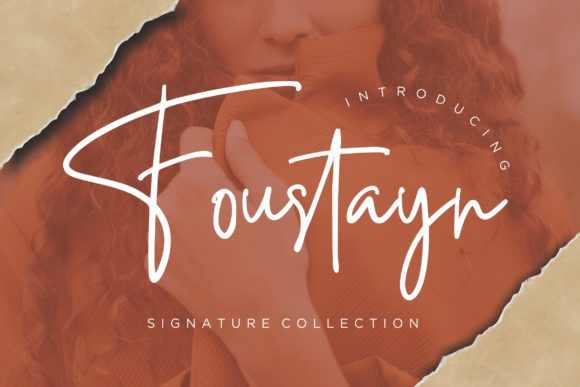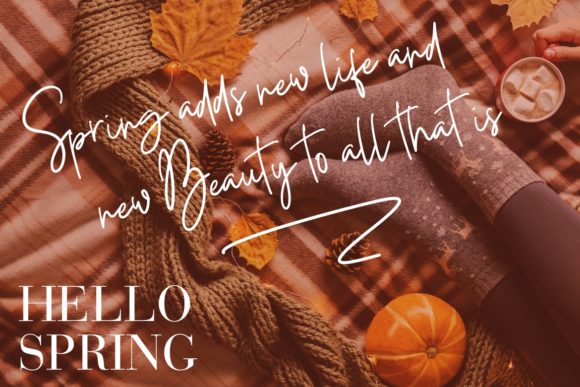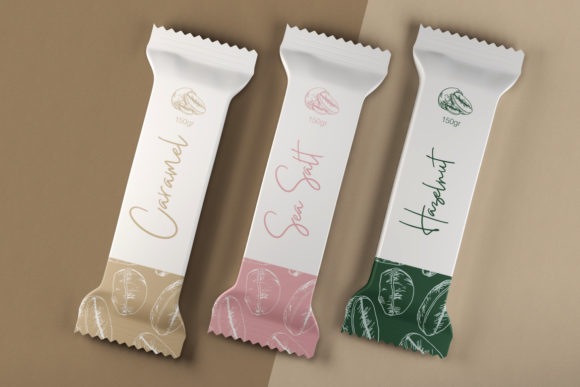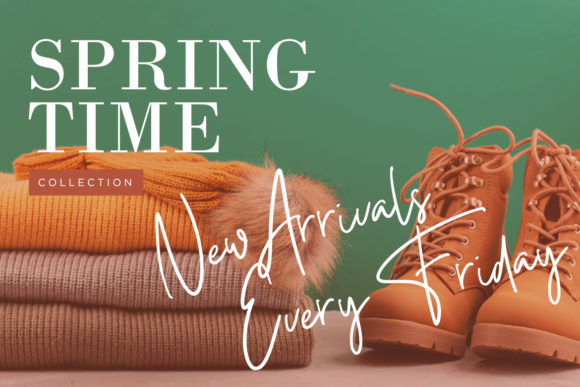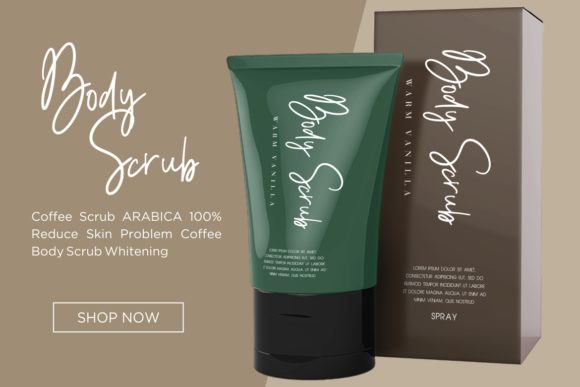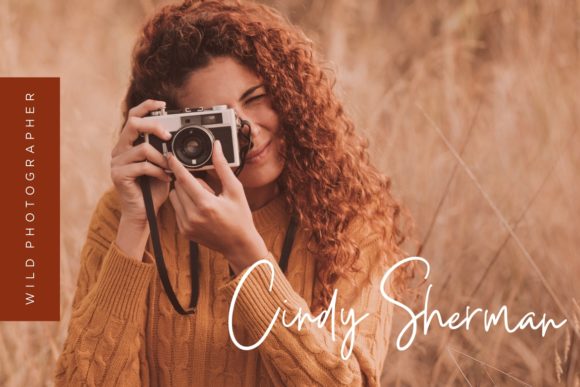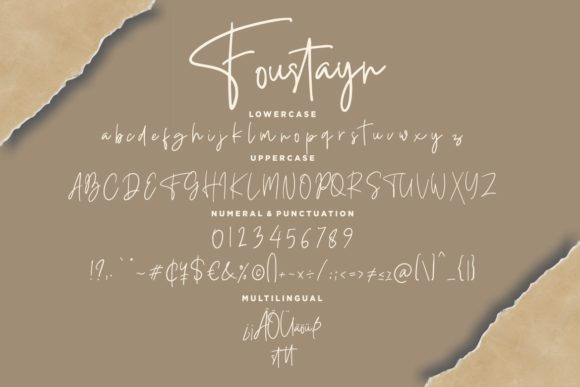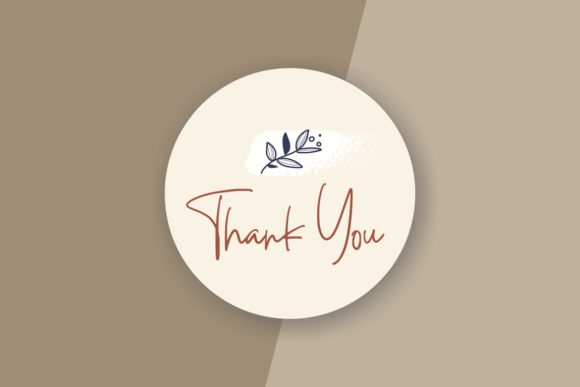
HomeScript FontsFoustayn Font Script Fonts Foustayn Font FacebookXPinterestWhatsApp Foustayn Font Poster 2 Foustayn Font Poster 3 Foustayn Font Poster 4 Foustayn Font Poster 5 Foustayn Font Poster 6 Foustayn Font Poster 7 Foustayn Font Poster 8 About Foustayn Font Foustayn is a simple, yet elegant script font with a casual style. DOWNLOAD ON CREATIVE FABRICAThis font is sold and delivered by Creative Fabrica. Font Canyon may earn a commission if you buy through this link. People also explored Twilight Font Metro Mini Font Hanalei Pro History Font Hafetareha Font Rabbits Font Amelia Script – Draft Version Fayyana Font Daddy Font 288 0 TagsFoustayn Font Previous articleJacktro FontNext articleAmira Calm Font LEAVE A REPLY Cancel reply Comment: Please enter your comment! Name:* Please enter your name here Email:* You have entered an incorrect email address! Please enter your email address here Website: Save my name, email, and website in this browser for the next time I comment. Personal Use Free Waverly Date Personal Use Free Read more about this font Awesome Snowflakes Font Personal Use Free Read more about this font Fakedes Personal Use Free Read more about this font Black Friday Personal Use Free Read more about this font BLOG The 10 Best Handwriting Fonts to Add Personality to Your Designs 10 of the Best Handwriting Fonts for Adding Personality to Your Designs There will undoubtedly be no other better choice than handwriting fonts to give... Elegant Wedding Invitation Fonts – Handwritten & Script Fonts Fonts That Capture the Spirit of New York City Free vs Paid Fonts: Why Investing in Premium Fonts Is Worth It